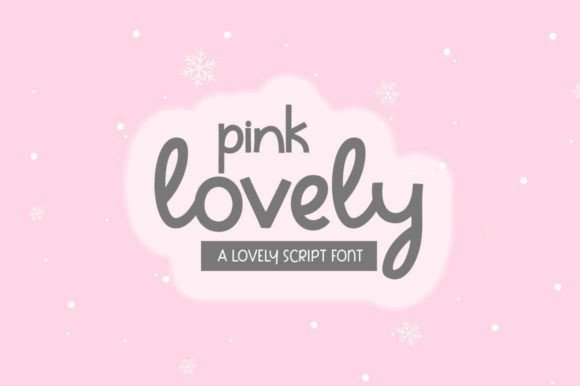
Attention all designers! Meet the latest addition to your design arsenal - Pink Lovely Font! This font is a script font that was created with one thing in mind - love. That's why it's the best font for love out there! The Pink Lovely Font was carefully crafted by Lucky Type to make your next pretty design stand out from the crowd.
With its unique and beautiful fonts, Pink Lovely is guaranteed to make your designs pop. Whether you're designing wedding invitations, love letters, or romantic quotes, Pink Lovely is the perfect addition to your font collection. And with both Pink Lovely OTF and Pink Lovely TTF included in the files, you'll have no problem using this font on any design platform you prefer.
But Pink Lovely is not just any font. It's a font that's full of emotions! This font is perfect for anyone who wants to make their designs speak to their audience on a deep level. Pink Lovely will help you create designs that convey love, joy, and happiness with ease.